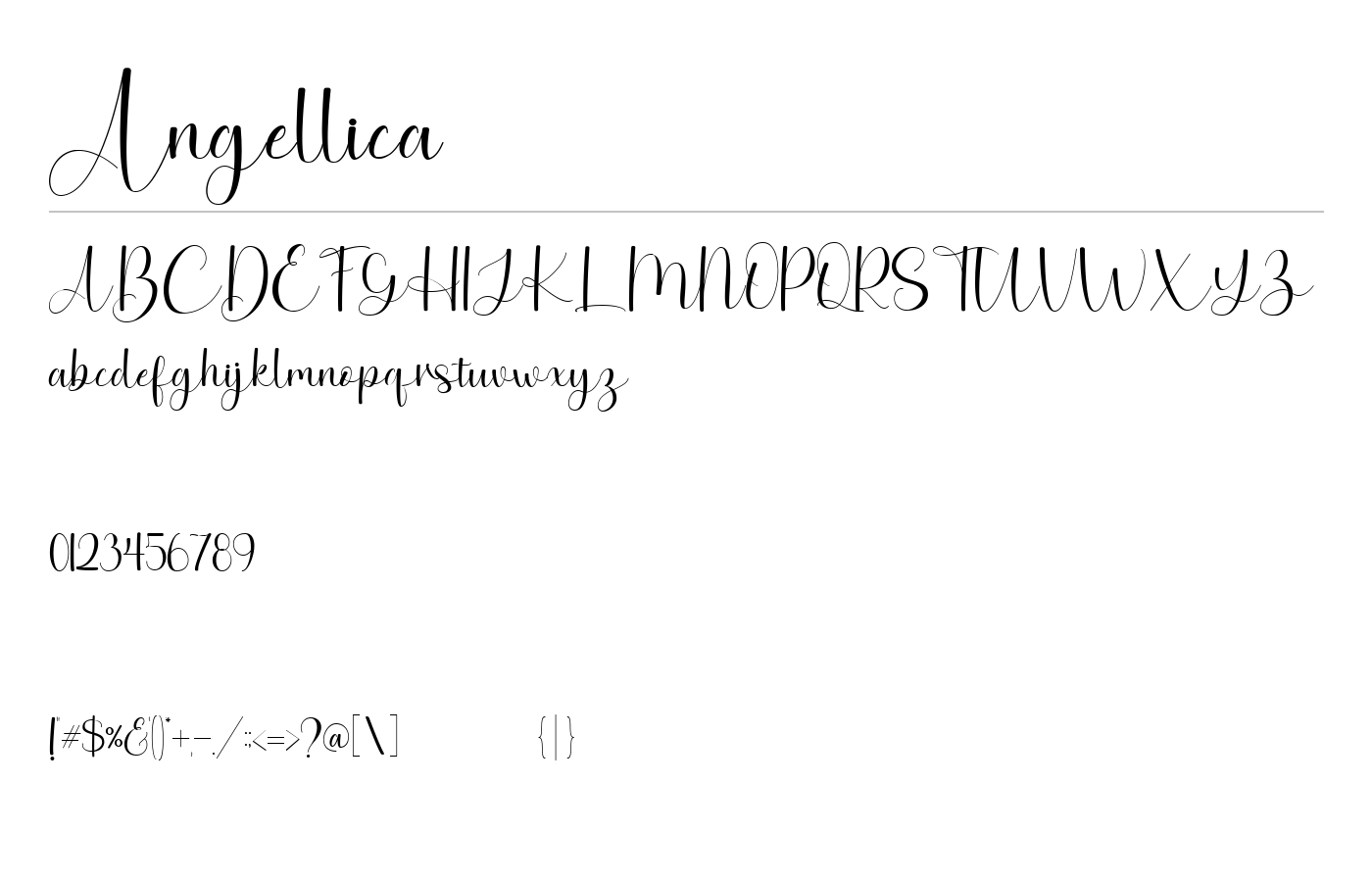
Angellica is a delicate and elegant script font characterized by its thin, graceful strokes and flowing letterforms with whimsical swashes. Its light weight and airy design bring a sophisticated, feminine touch perfect for luxury branding, wedding invitations, or fashion-related projects. This font shines in decorative headlines and logos where a refined, stylish atmosphere is desired.
Angellica Font
About Angellica Font